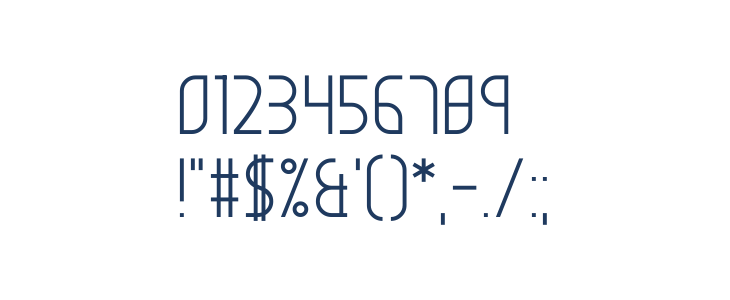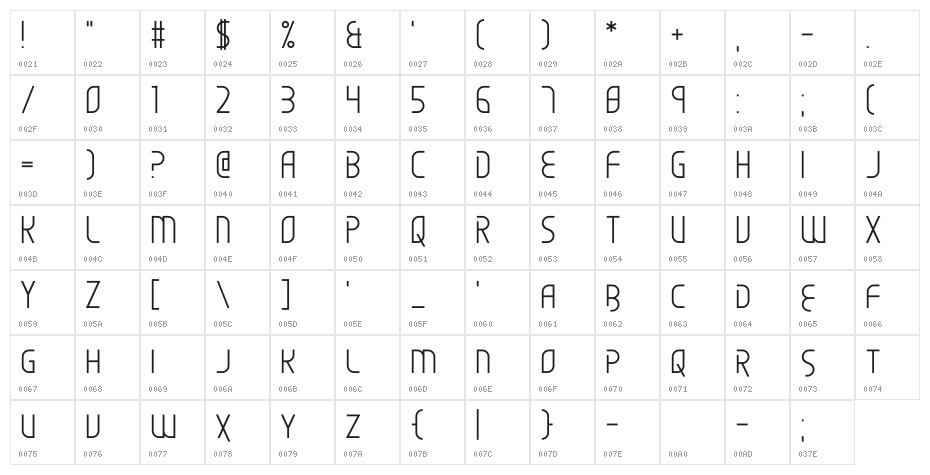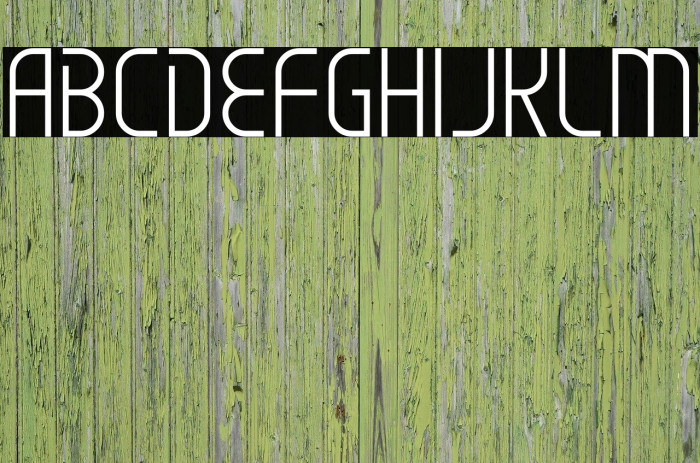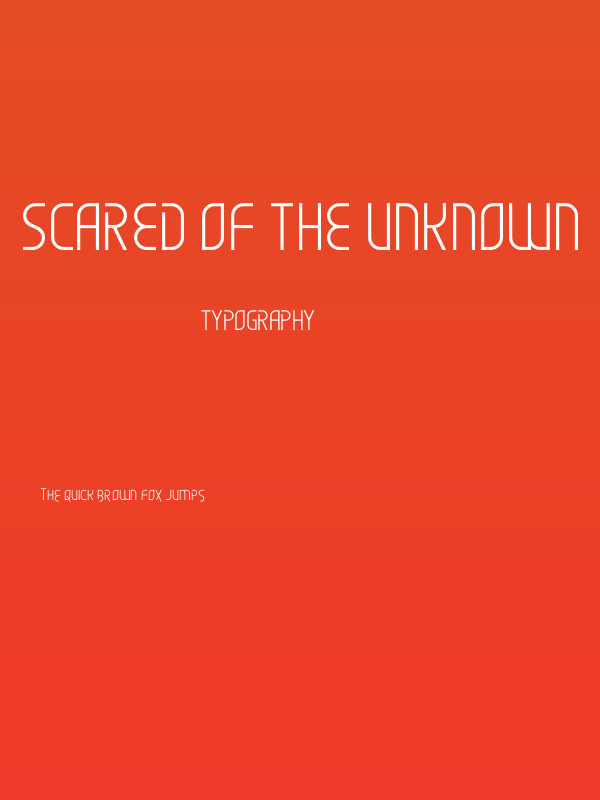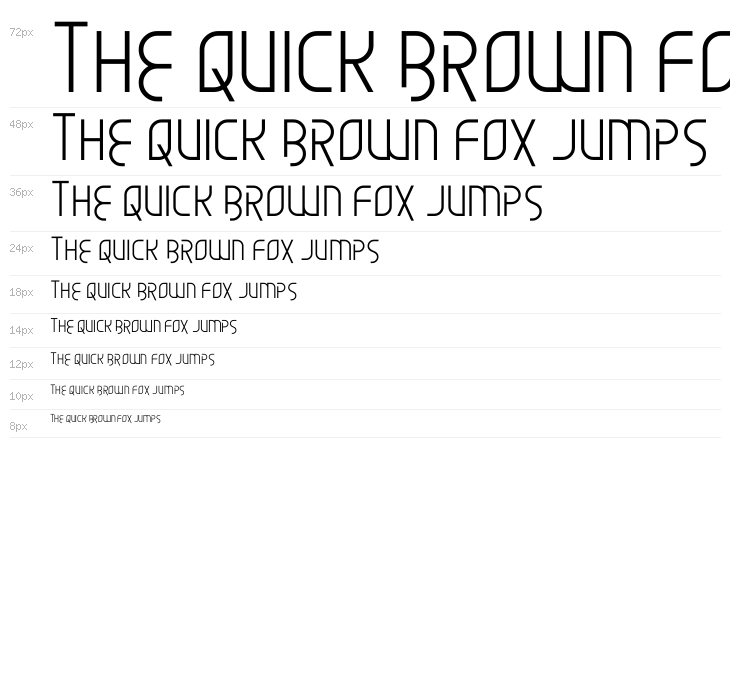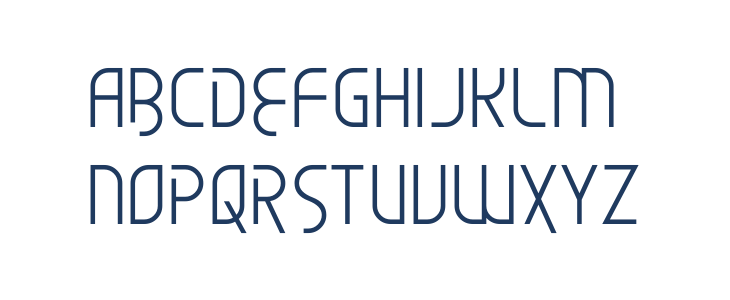
Scared of the Unknown Font
Scared of the Unknown Description
This font features a modern, geometric design with clean lines and a minimalist aesthetic. The characters are constructed with uniform stroke widths, giving it a sleek and contemporary look. The uppercase and lowercase letters maintain a consistent height, contributing to a cohesive appearance. The numerals and special characters are designed to match the overall style, ensuring a harmonious visual experience. This font is ideal for projects that require a modern and sophisticated touch, such as branding, advertising, and digital interfaces.
| Use Case | Headlines, Logos, Digital Interfaces |
| Proposed Projects | Ideal for branding, advertising, digital interfaces, and modern design projects. |